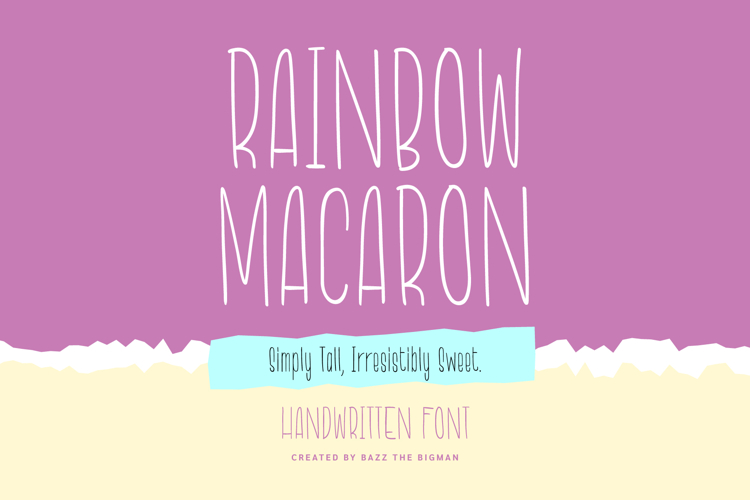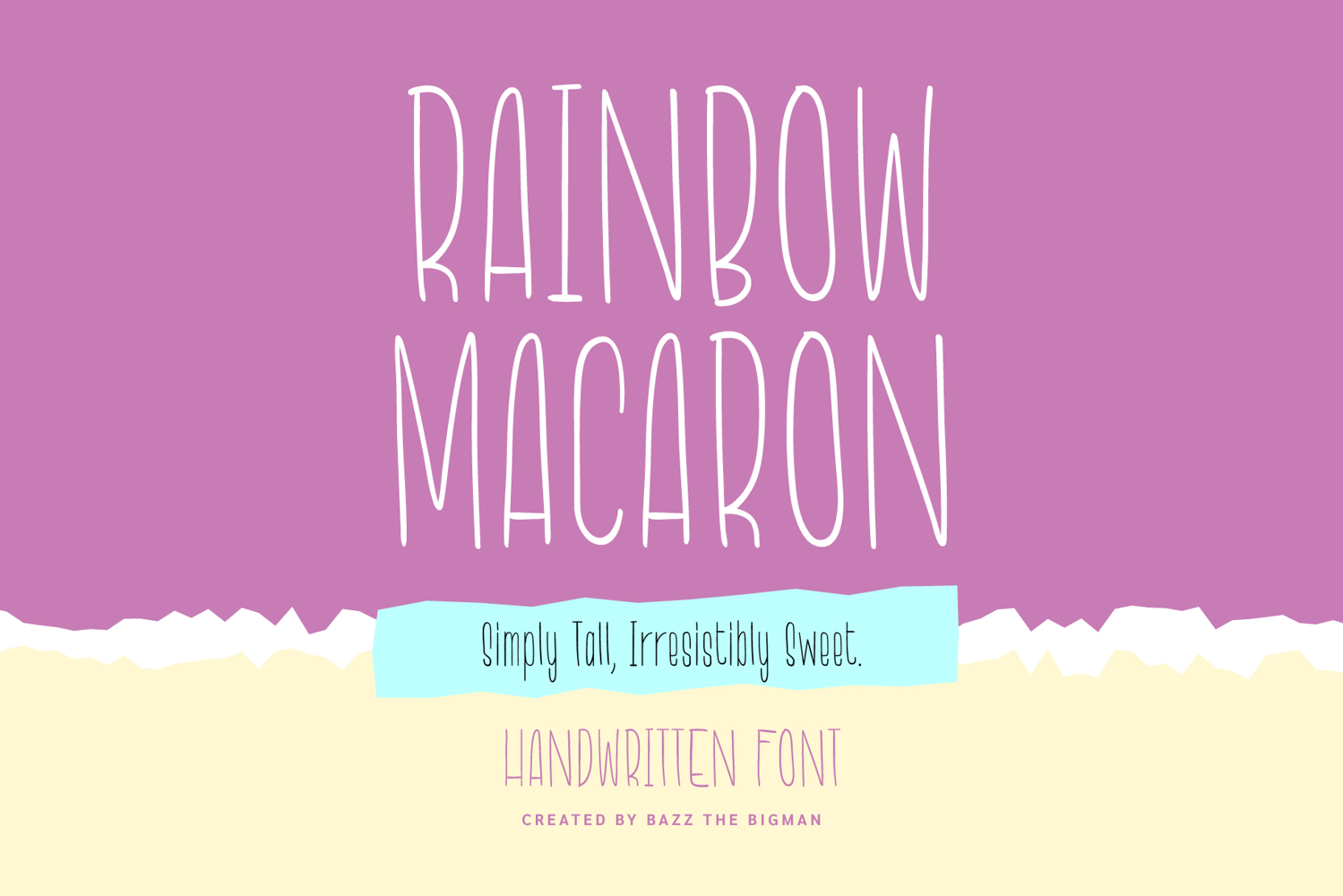
Rainbow Macaron
Rainbow Macaron is a delightfully simple and irresistibly sweet tall, thin handwritten font that captures a whimsical, lighthearted, and cheerful spirit.
As the tagline suggests, this Rainbow Macaron typeface is “Simply Tall, Irresistibly Sweet,” featuring an elongated, condensed structure and simple, uniform monoline strokes, giving it a playful, bouncy, and airy feel. This excellent handwritten font is perfectly suited for children's books, cute food packaging, party invitations, craft projects, and any design aiming for a whimsical, sweet, and approachable aesthetic.
Its distinctive height makes the Rainbow Macaron font a charming choice for headers and titles where a light and fun, almost doodle-like style is desired.